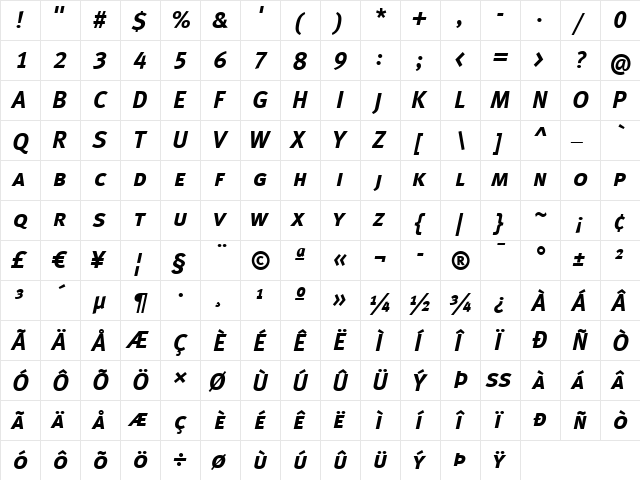
Meta Bold Italic
| Foundry | Erik Spiekermann, published by Fontshop International for the FontFont library |
Design Context for Meta Typeface
Meta is a composed and adaptable typeface that performs quietly and consistently across a wide range of design contexts. The dynamic lean of this cut emphasises speed and emphasis in any layout. Its bold stroke weight gives it real presence on the page.
Pro Tip: Try Meta for annotation and caption copy alongside an upright companion — the contrast in angle creates a dynamic but ordered typographic system.